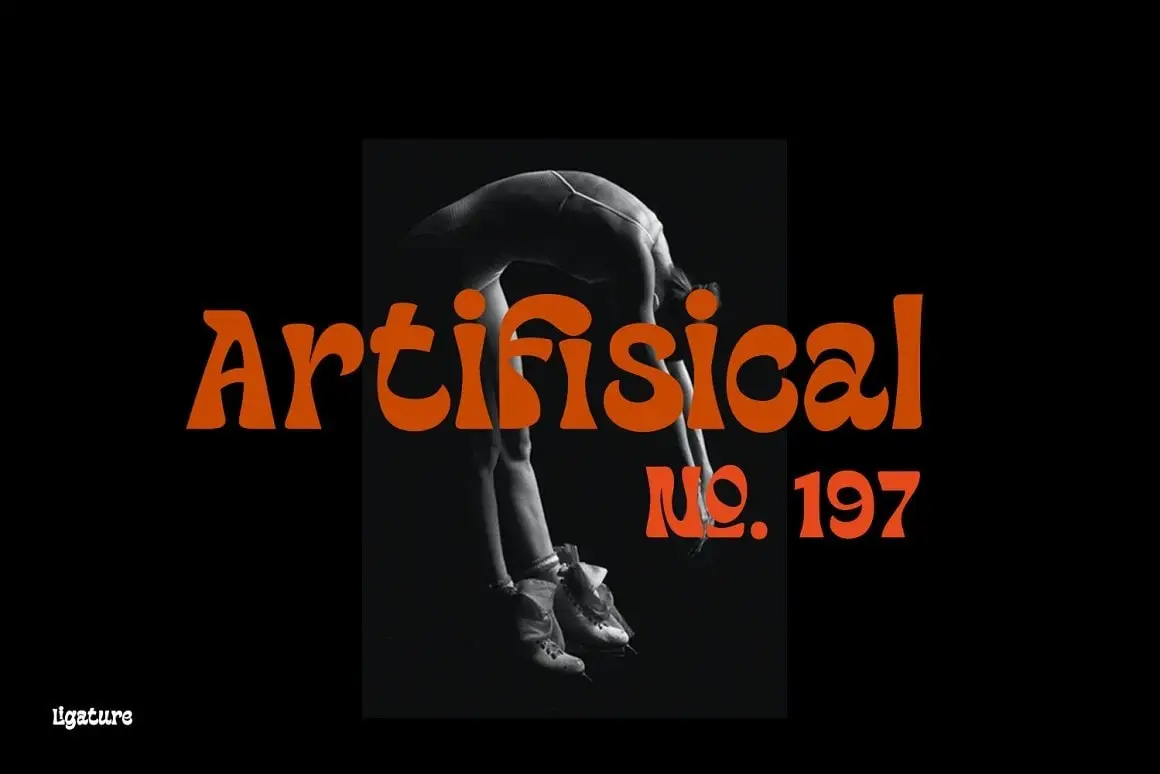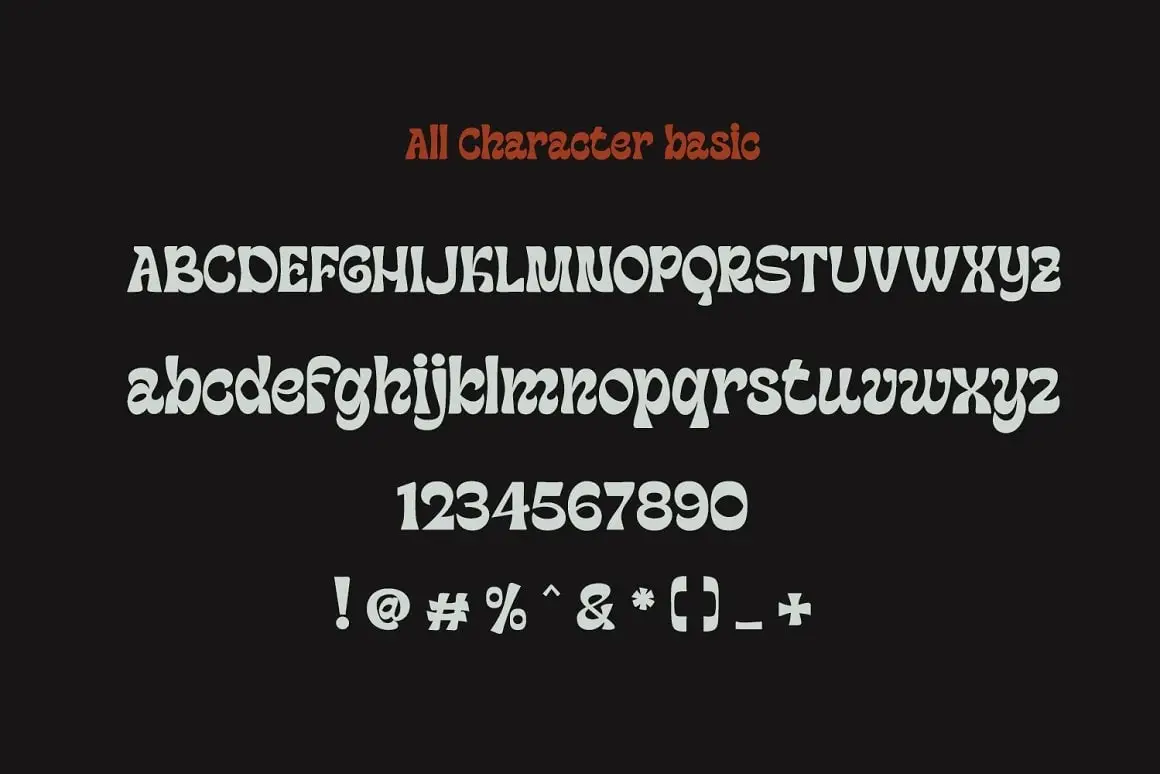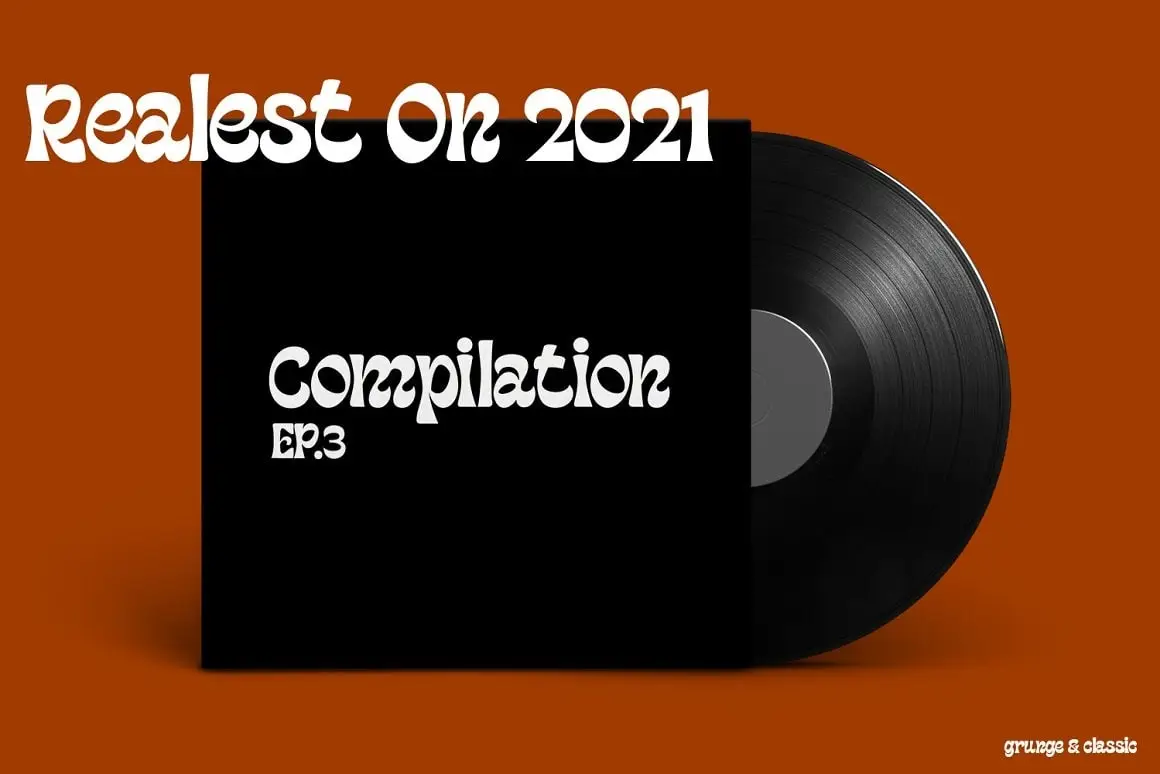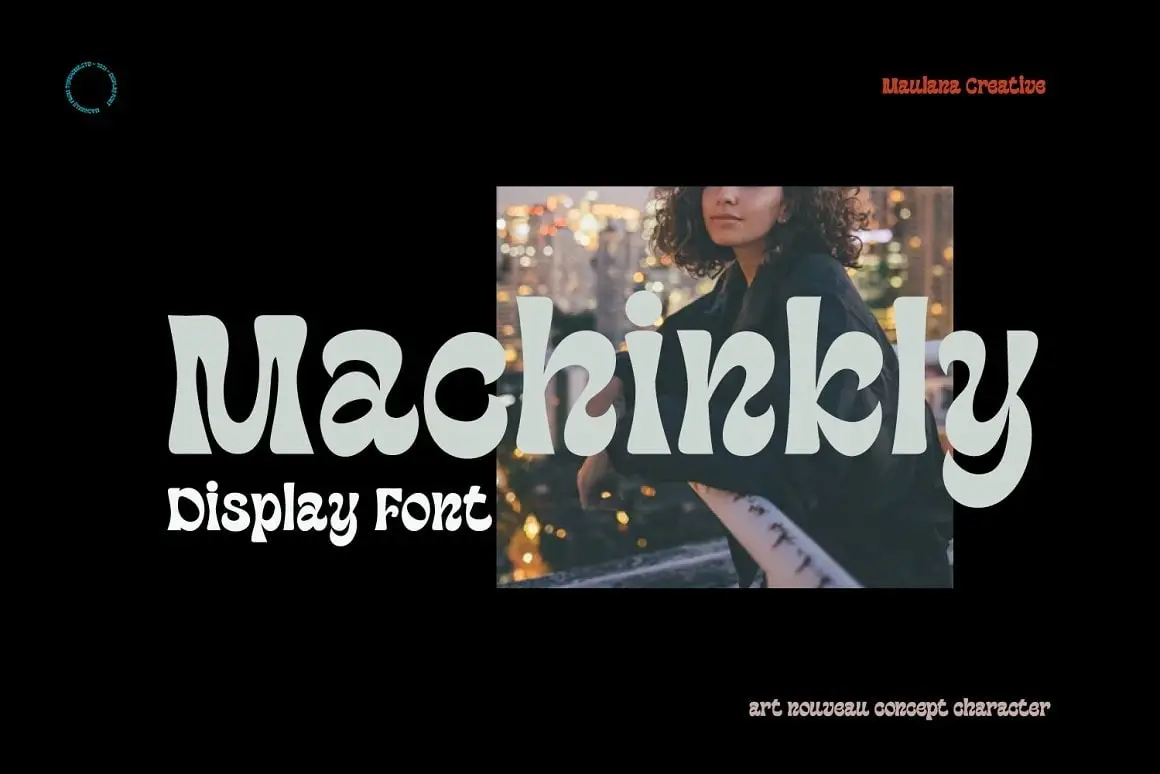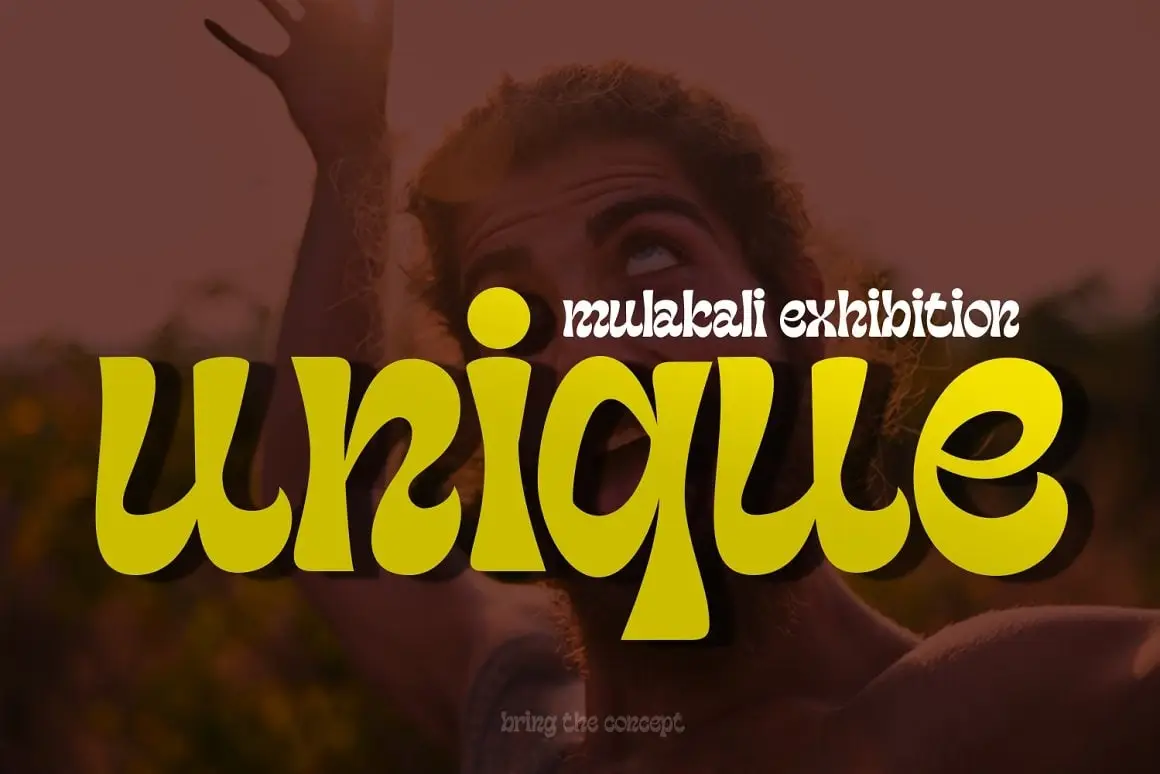
Maulana Creative-Machinkly Display Font
The Maulana Creative-Machinkly Display Font is a unique typeface designed to make a bold statement. With its distinctive style, this font is perfect for a variety of creative projects, including branding, logos, and promotional materials.
• Stylish display font with a creative flair
• High readability for both print and digital use
• Style: Display
Ideal for eye-catching headlines, posters, and social media graphics, the Maulana Creative-Machinkly Display Font can elevate your design projects with its unique character.